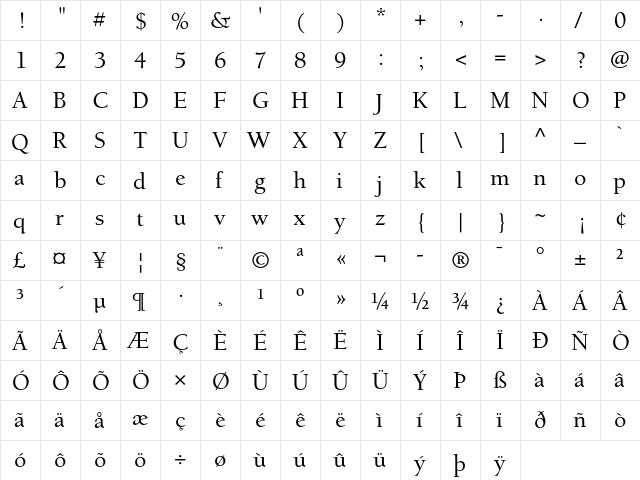
Berkeley Oldstyle Medium Font Preview
Berkeley Oldstyle Medium
Berkeley Oldstyle Medium Font Details
Design Context for Berkeley Typeface
Berkeley carries the refined structure of traditional serif typography, with bracketed terminals and considered proportions that communicate credibility and craft.
Pro Tip: Use Berkeley for editorial body copy and considered headline work. Pair with a neutral sans for UI elements or captions to create a classic hierarchy.